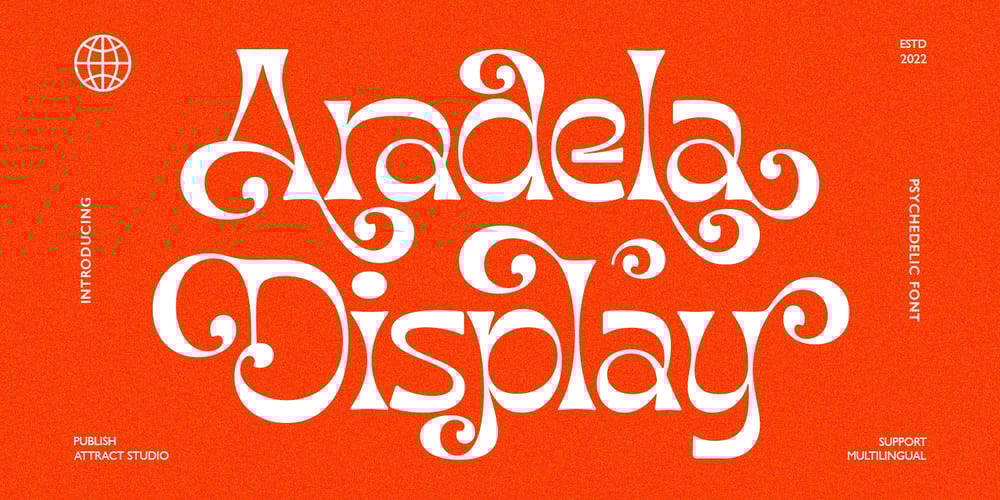
Aradela Display Font Family was designed by Muammar Kadafi and published by Attract Studio. Aradela Display contains 1 styles and family package options. Aradela Display is a psychedelic style font with unique ornamental characteristics that will set your project apart from the rest.Aradela Display comes using the opentype feature to access ligatures and alternates, each glyph is created to create harmony. It will brighten up your work, for sure.